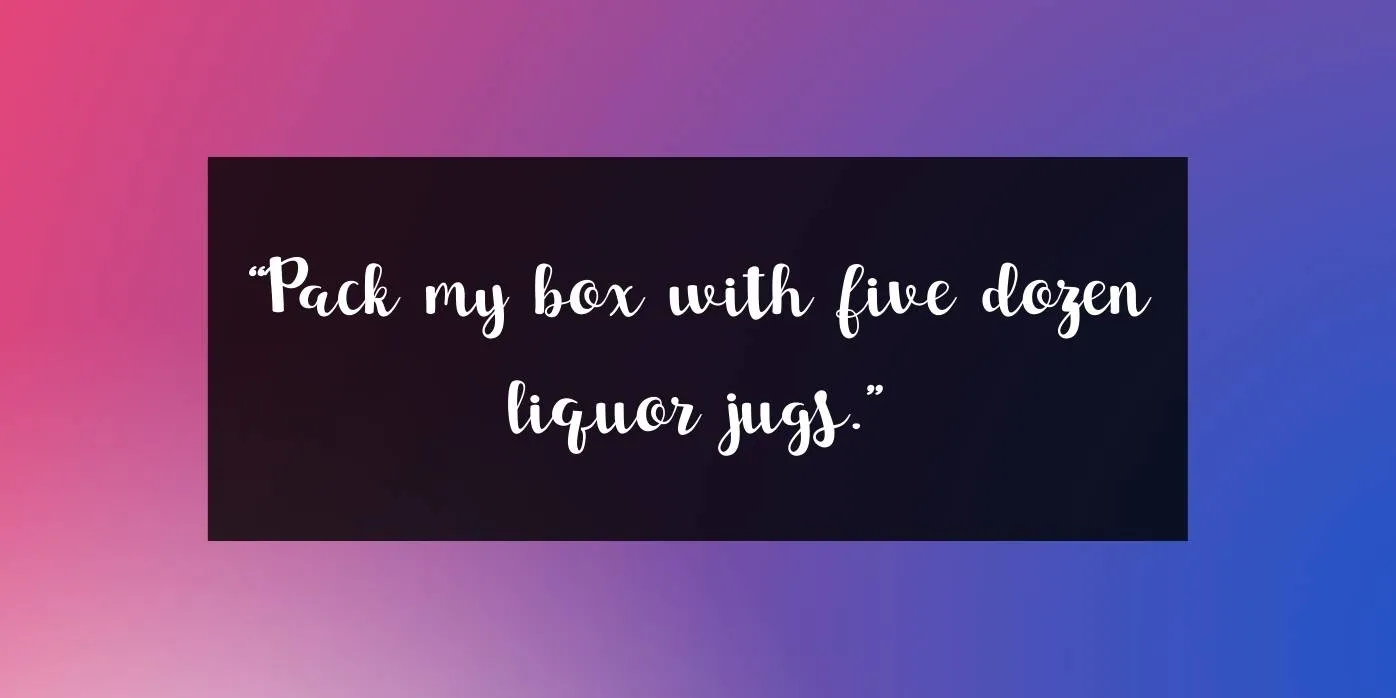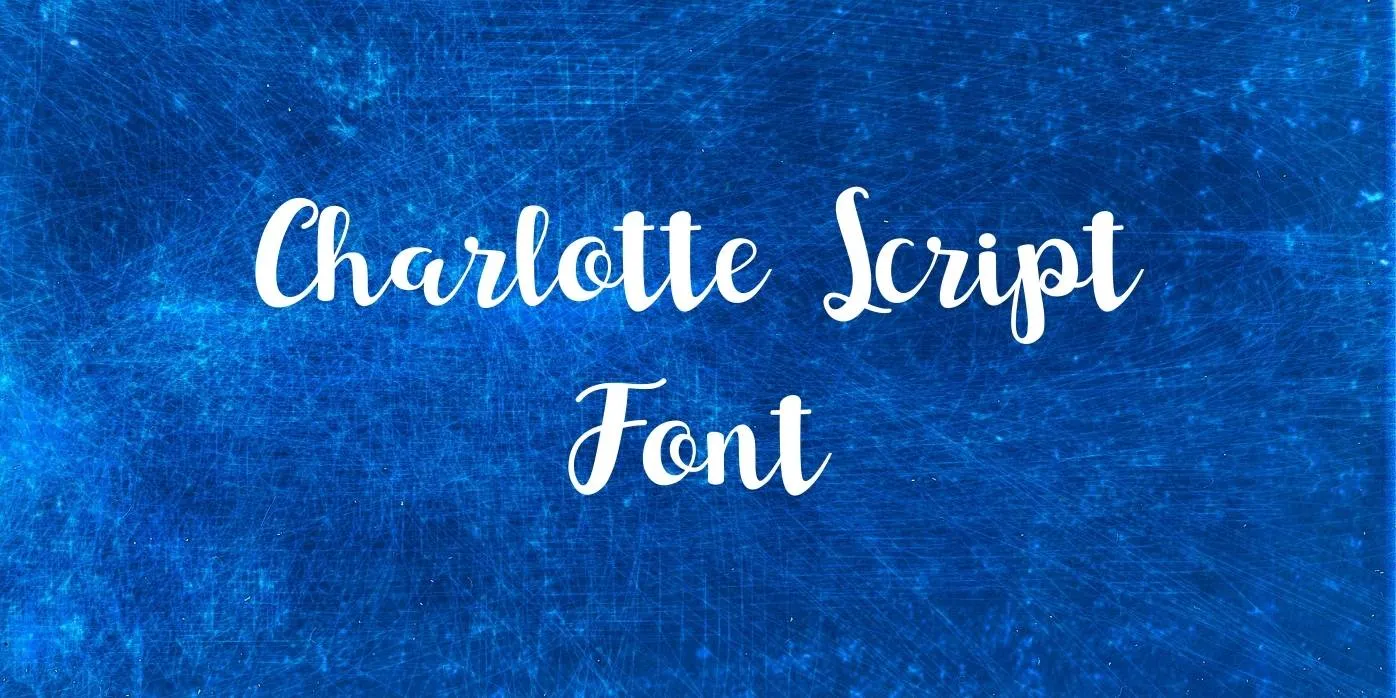
Charlotte Script Font
In this post, we introduce a very classic and stylish font that is known by the name Charlotte Script Font. This stunning typeface belongs to the script typeface family. This typeface was designed by Blessed Prints. And it was released on 2 November 2018.
Charlotte Script Font is a great choice for those who are looking for a beautiful and stylish script font. This classy typeface has a very classic and elegant design.  You will have to use its similar script mt bold font for more designs. And it comes in two different styles: regular and italic. The regular style is perfect for formal occasions, while the italic style is more suitable for informal occasions.
This staggering font also supports multiple languages, including Latin, Cyrillic, and Greek. And it comes in several different weights, from light to bold. So, you can choose the right weight according to your needs. You need to download this font family from our websites.